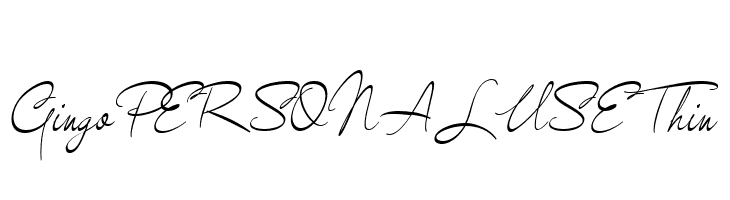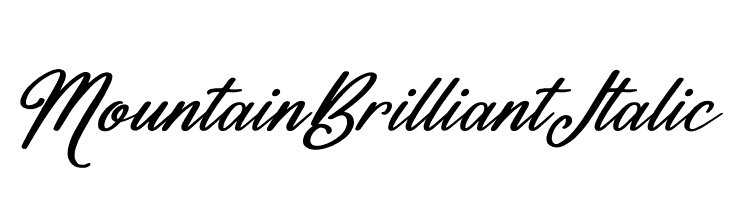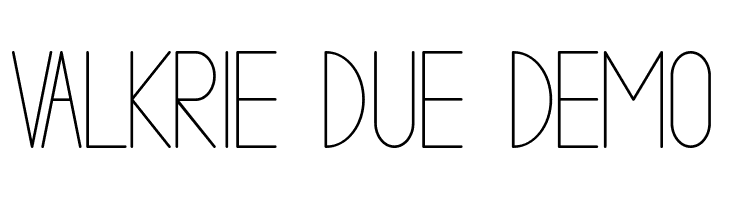
A modern, sleek font with thin, elongated letterforms and a geometric style.
A bold, geometric font with a three-dimensional, art deco-inspired design.
A bold, dripping font perfect for Halloween-themed designs.
A graceful, flowing script font with elegant, cursive strokes.
A bold, geometric font with sharp angles and a modern, industrial feel.
A modern, italicized font with smooth curves and consistent stroke width.
A romantic and sophisticated script font with elegant, flowing characters.
A bold, geometric font with a modern, industrial style.
An elegant script font with flowing, intricate loops and swashes.
A bold, italicized font with a modern and dynamic style.